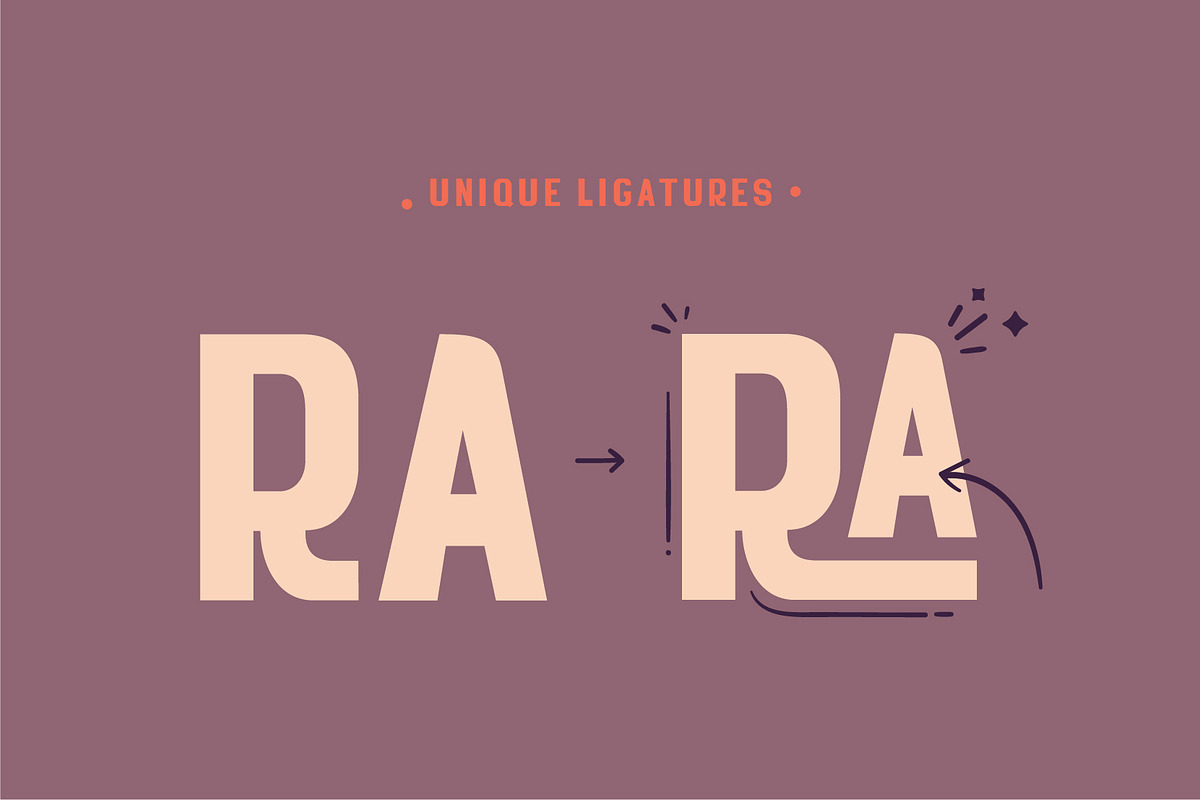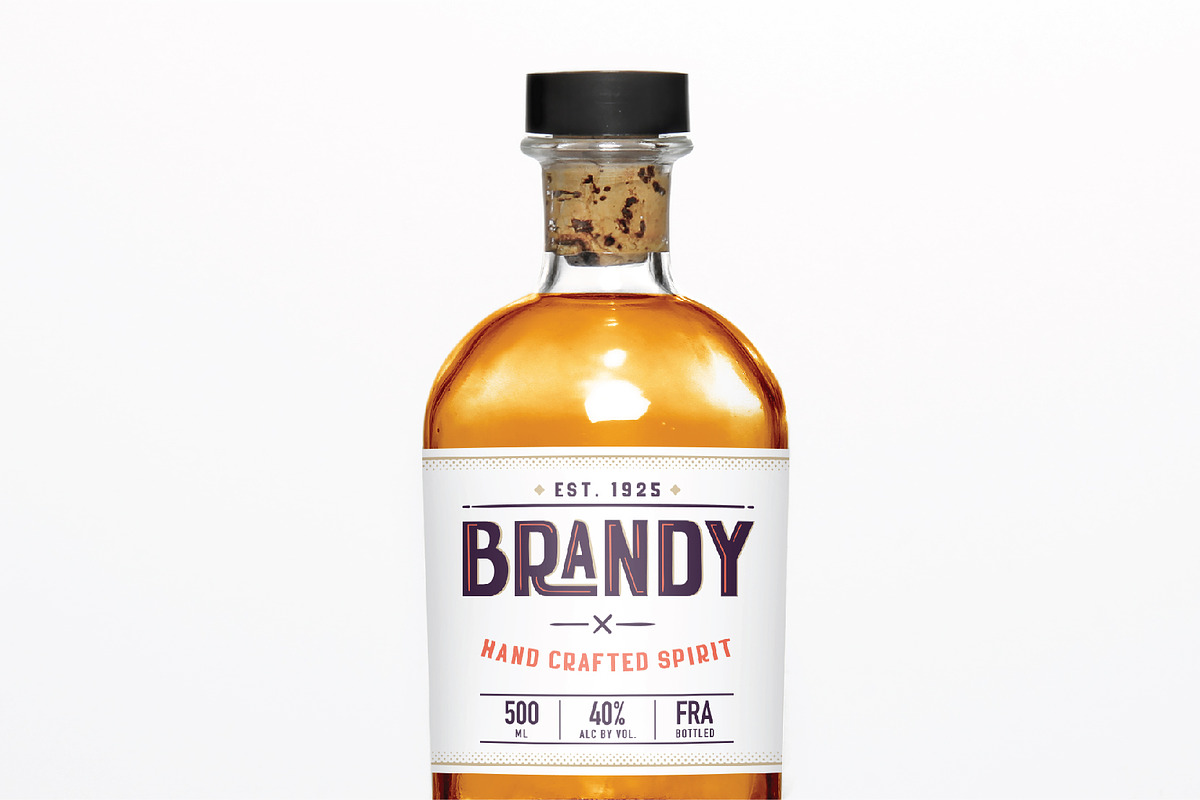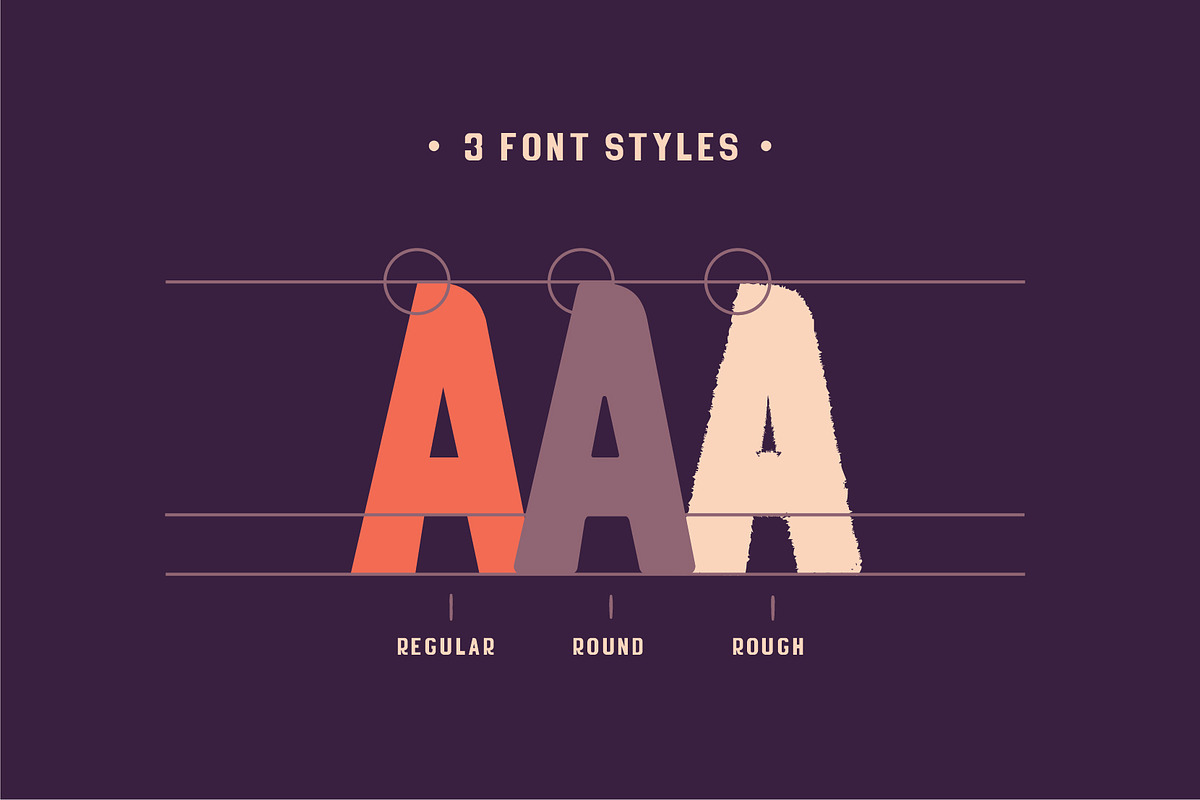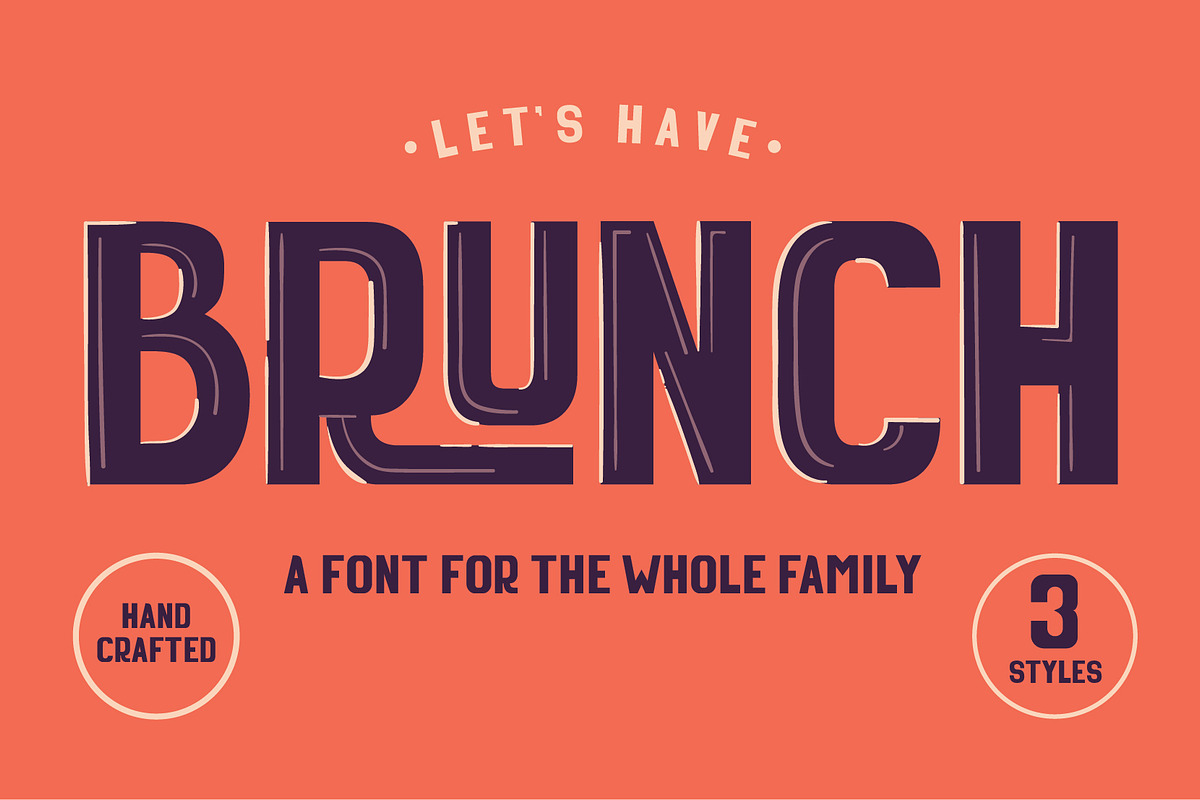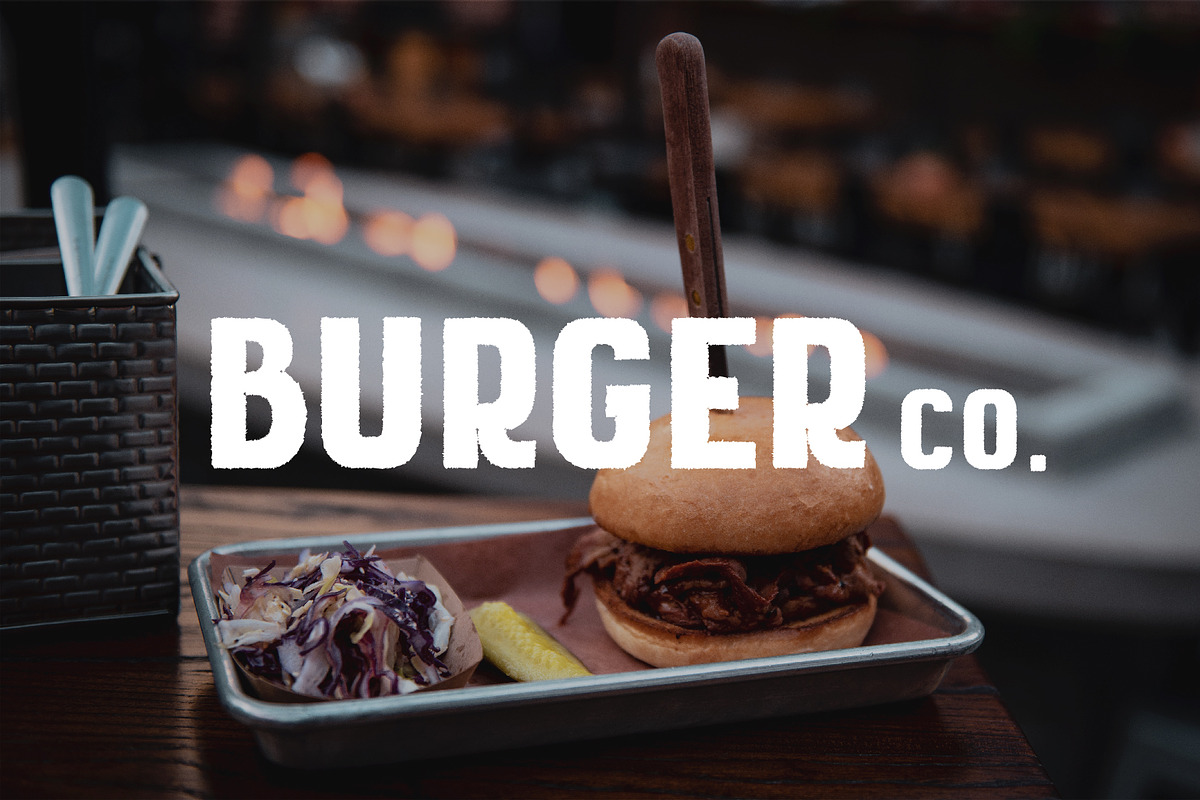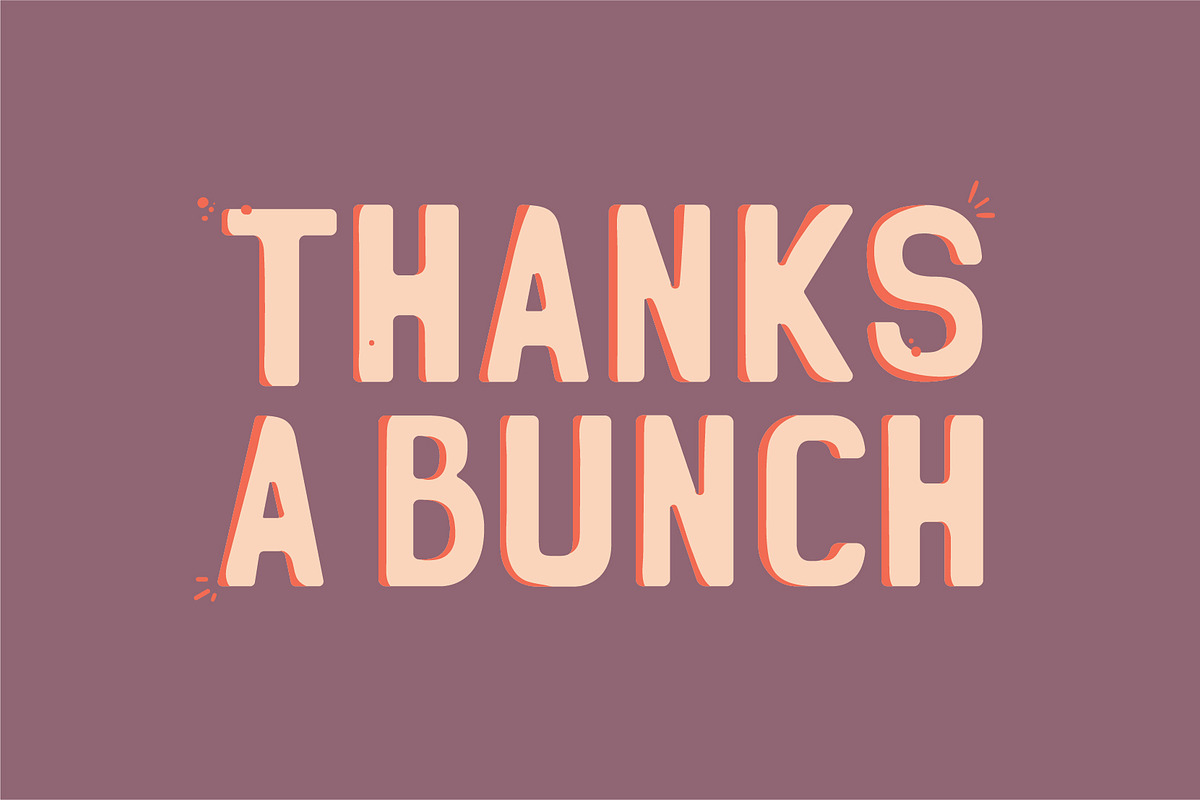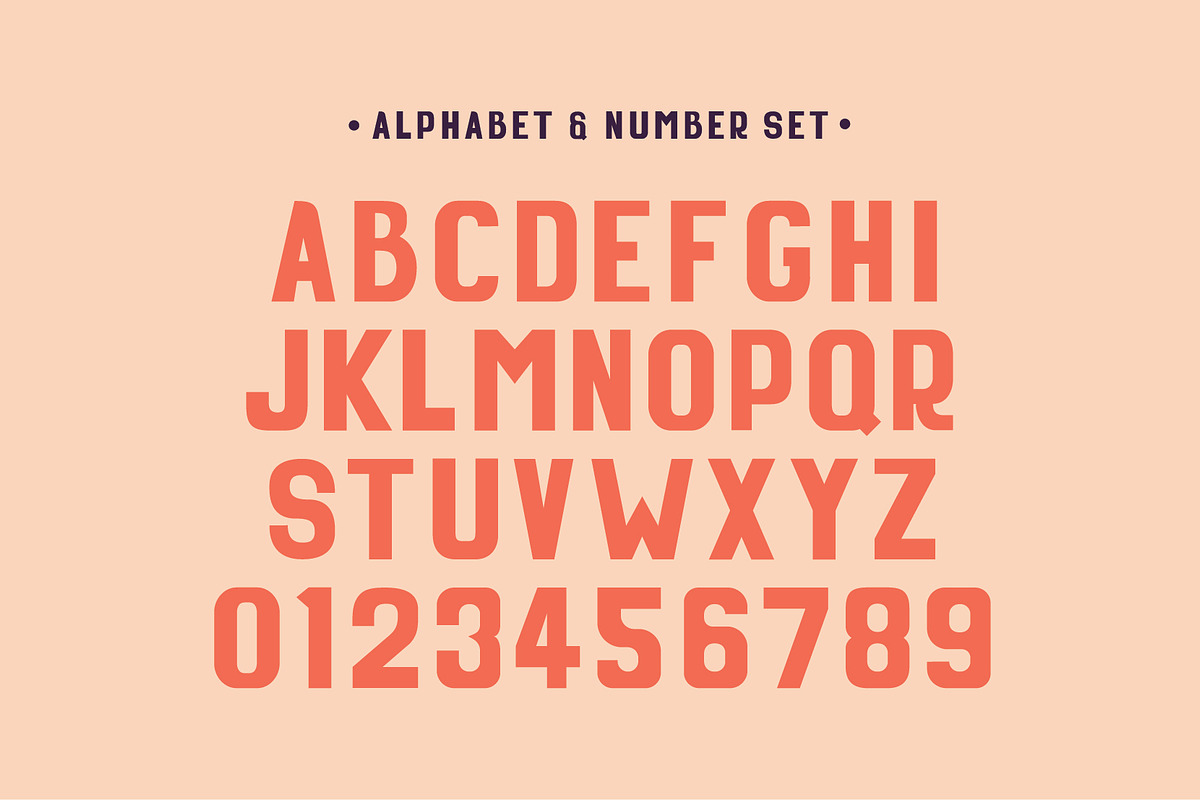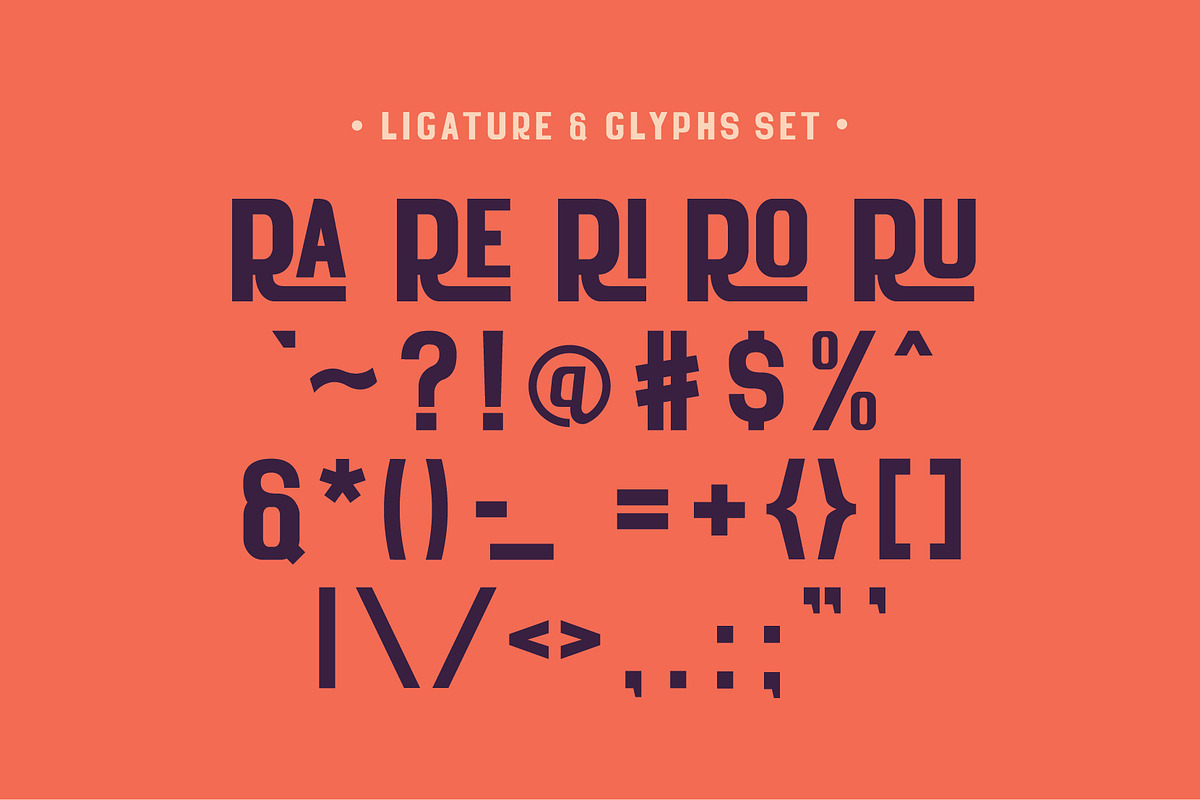
Brunch - A Font For The Whole Family
Brunch is a modern font for modern times and nothing's better than having Brunch with the whole family. With 3 different styles, the Brunch font family is a very versatile and stylish typeface for your everyday headlines and prints.
3 different and unique styles (Regular, Round, Rough)
Each with their own set of alphabets, numbers and glyphs
Unique ligatures to styles your headlines!